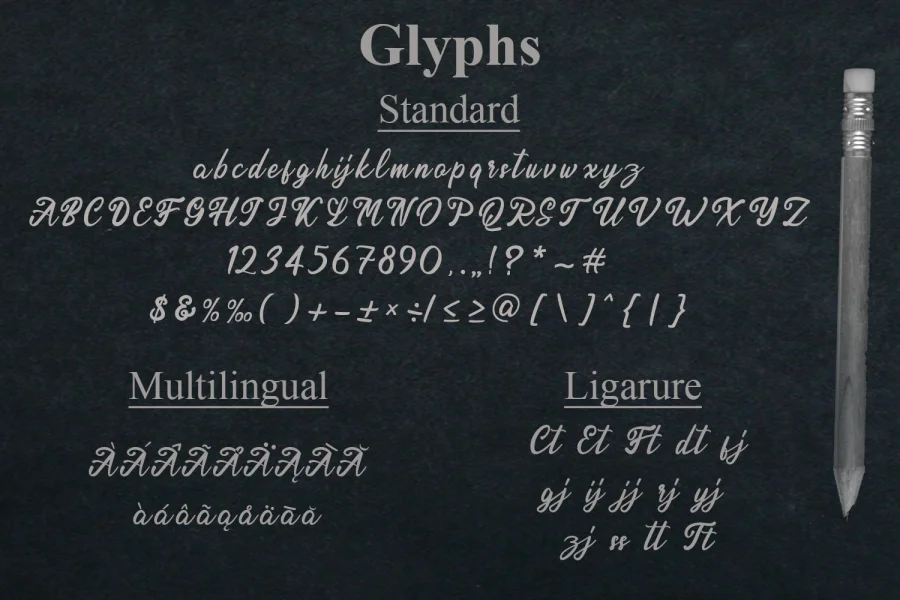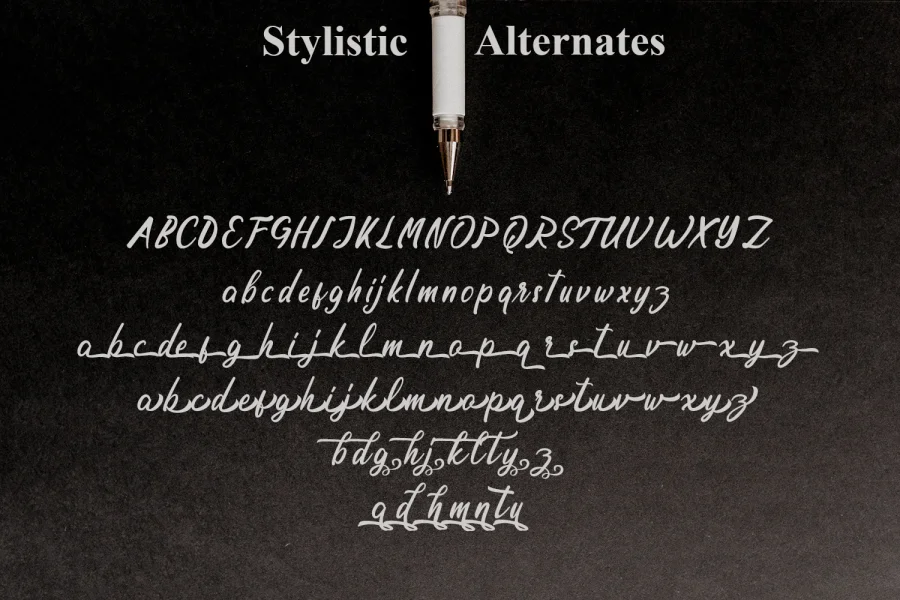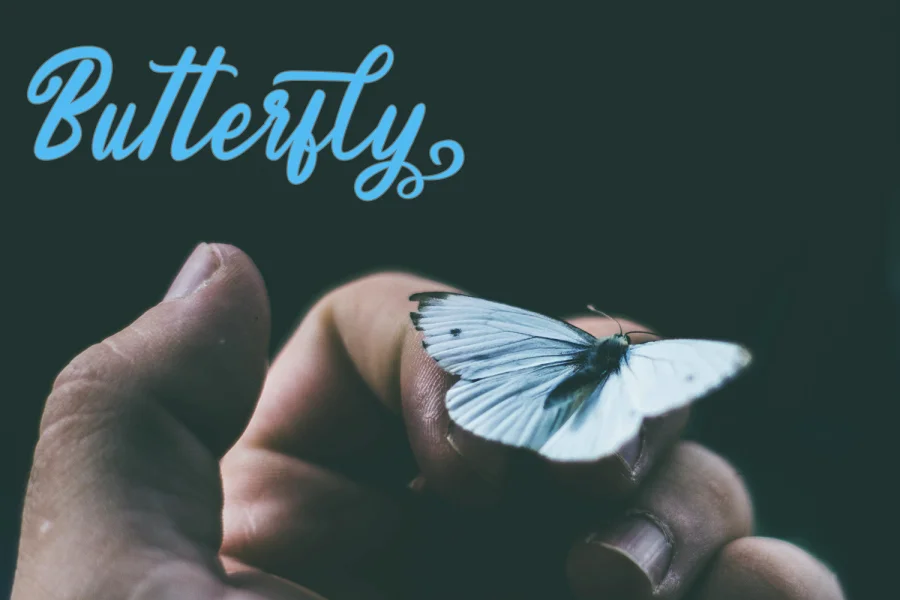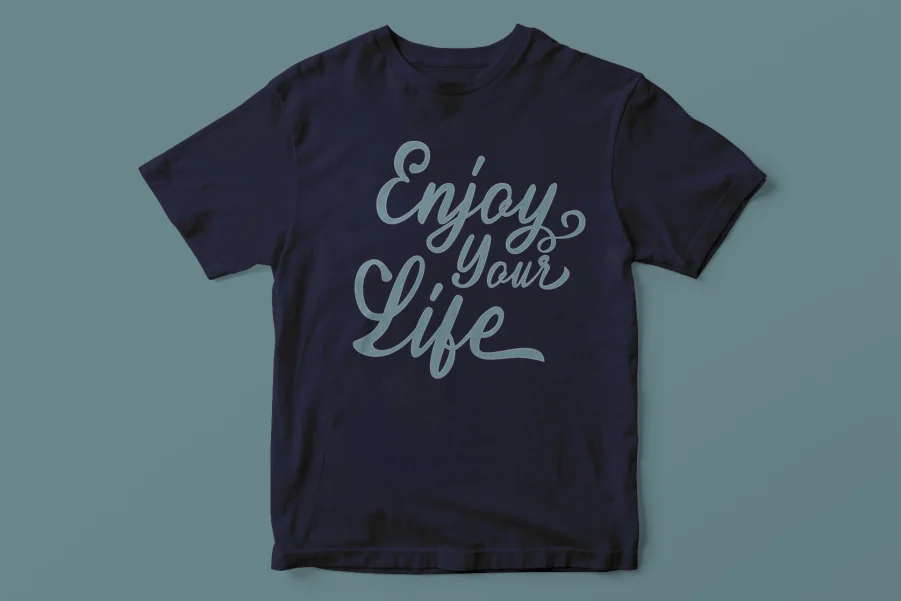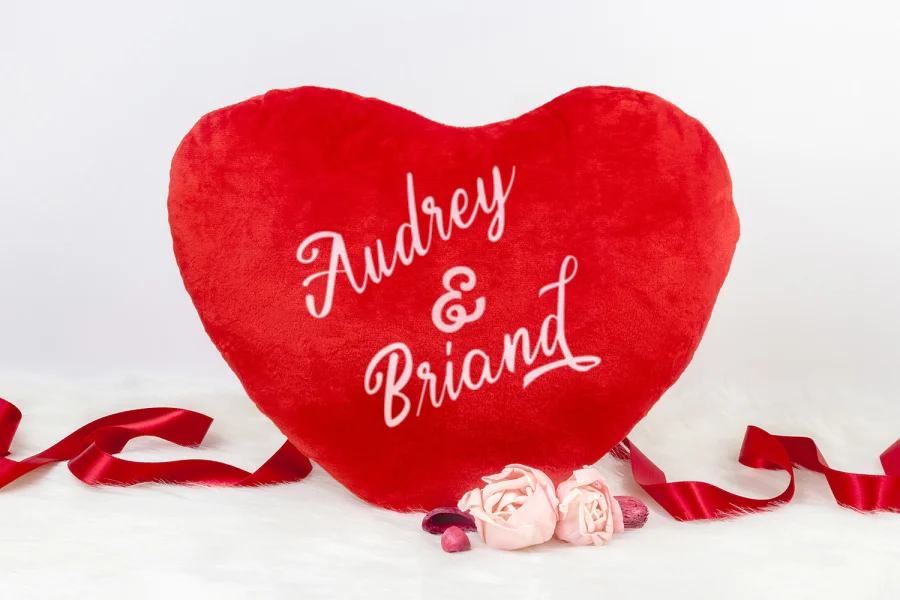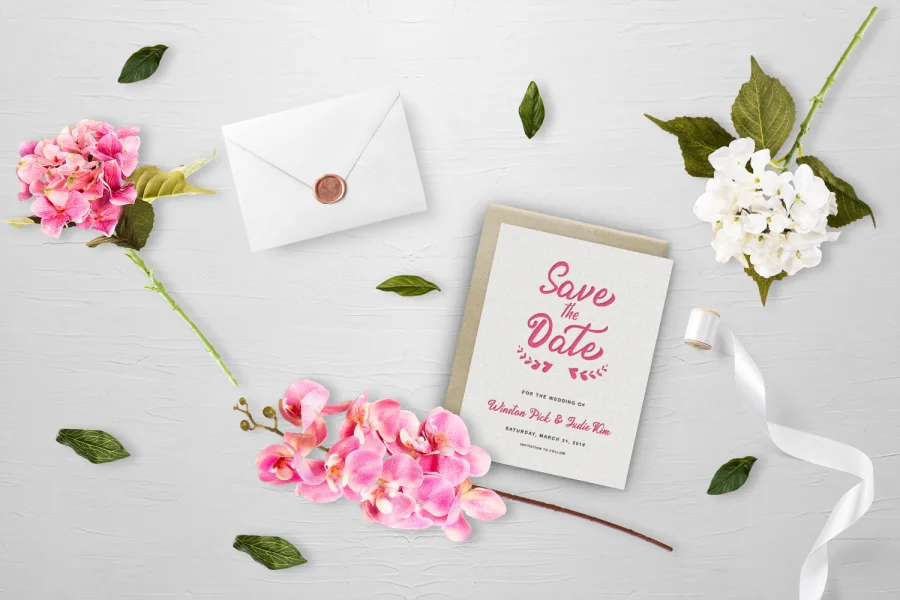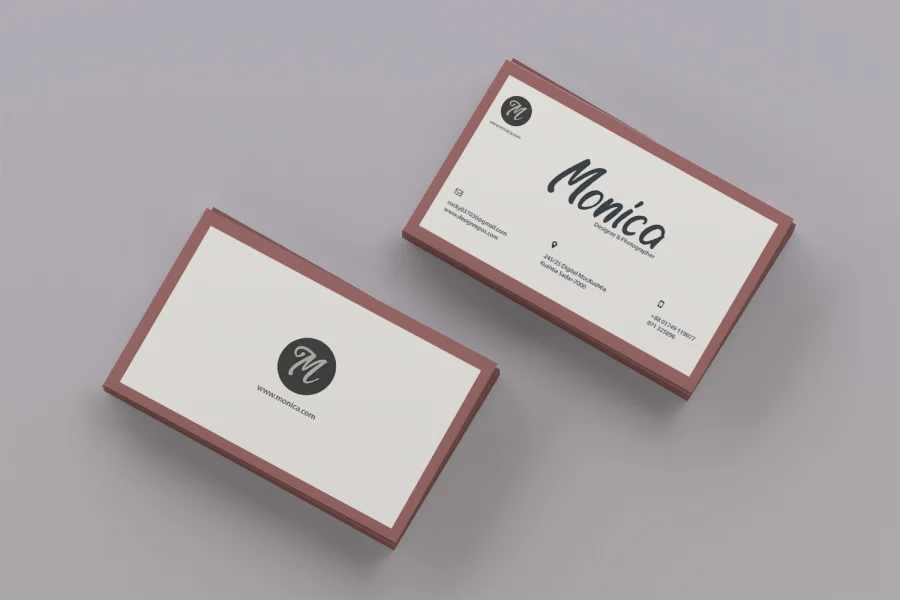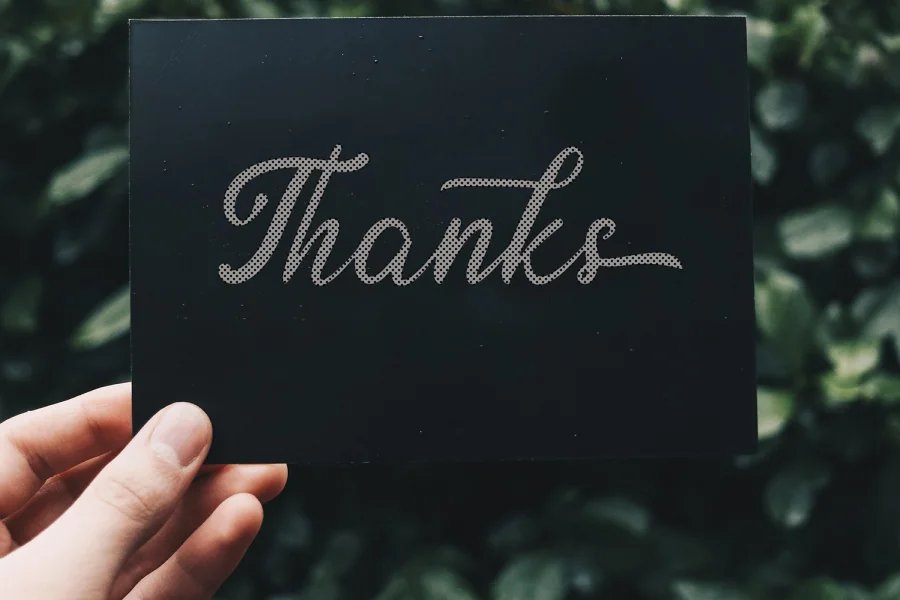
Endolita is a script typeface with bold and strong natural movement, this font is great for your various amazing project. This has many opentype features like ligature, stylistic alternate, contextual alternate, swash, etc and support multi language.
Endolita font is perfect for many different project such as logos & branding, invitation, stationery, wedding designs, social media posts, advertisements, product packaging, product designs, label, photography, watermark, special events or anything.